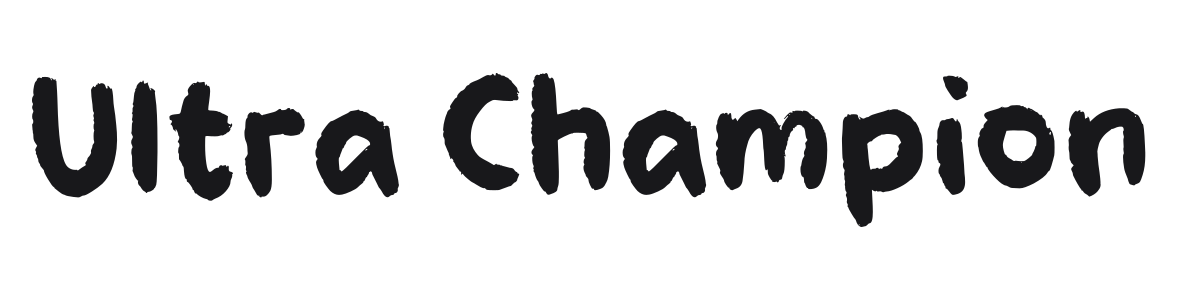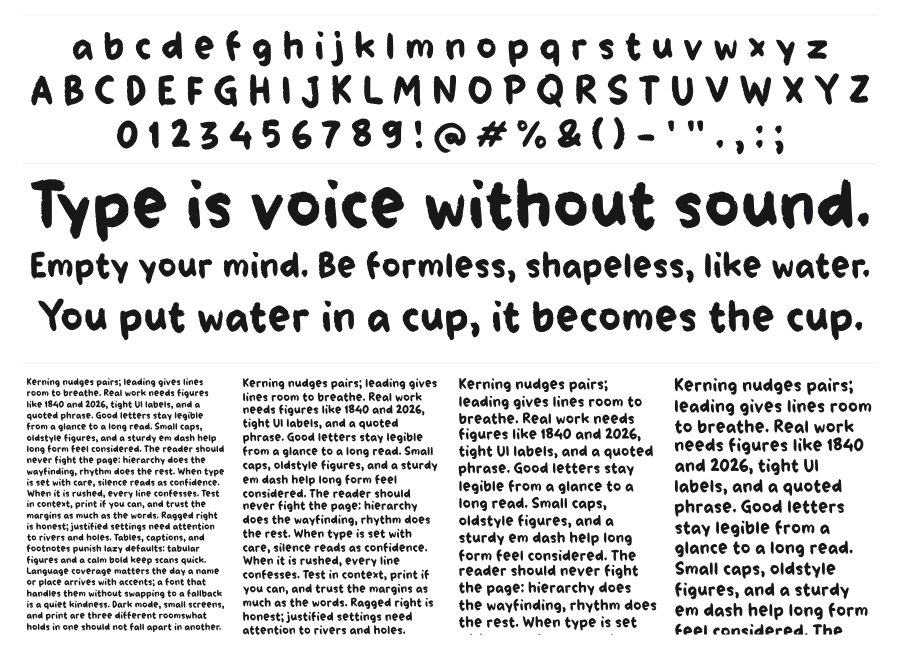
Ultra Champion
Ultra Champion is a heavy brush-style display font with rough, hand-painted texture and boldly irregular strokes. The bristle marks and wobbly edges give it an authentic handmade feel, sitting somewhere between a casual sign painter and a sports jersey graphic. It hits hard at large sizes and brings raw, physical energy to headlines and branding.